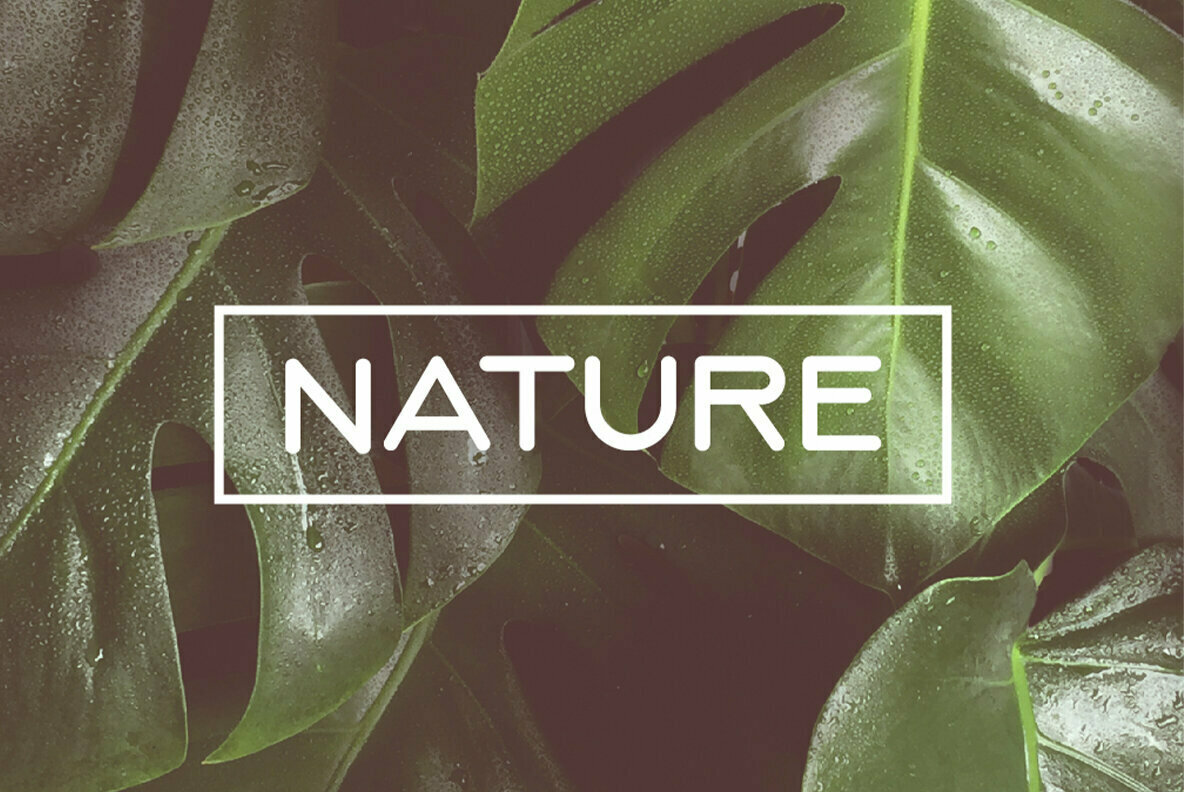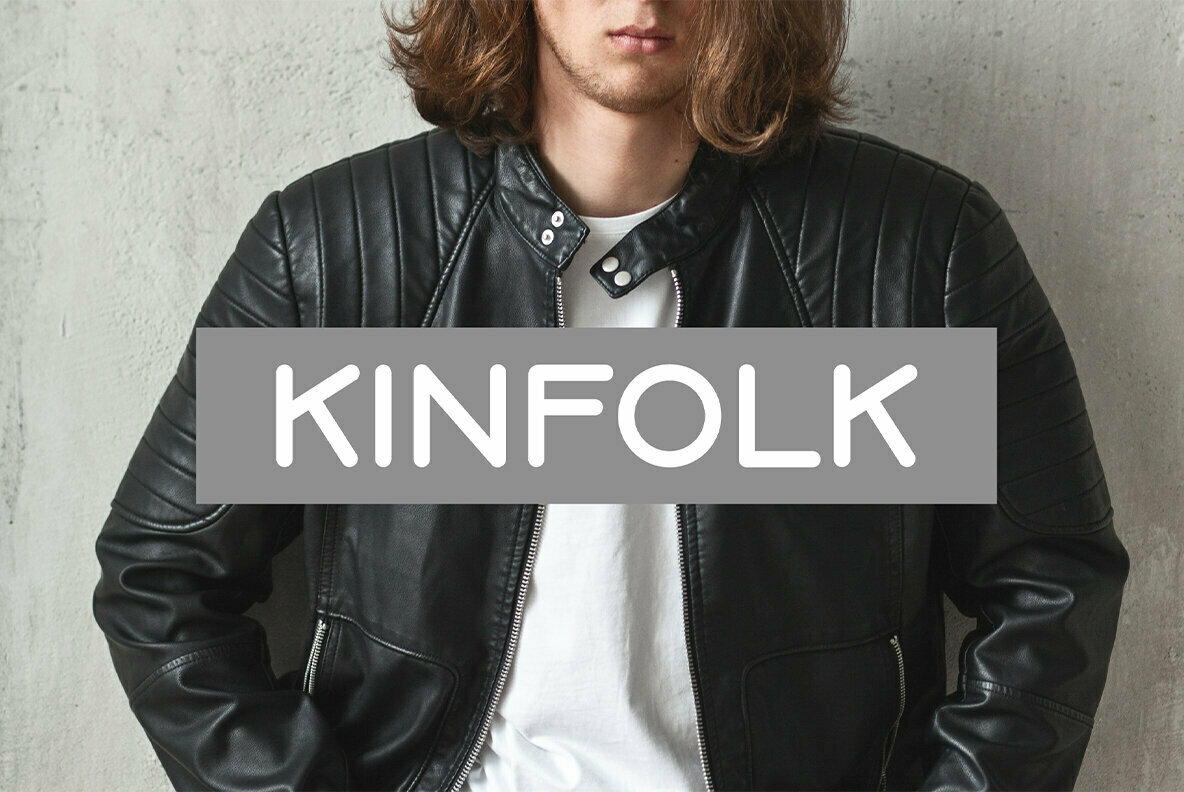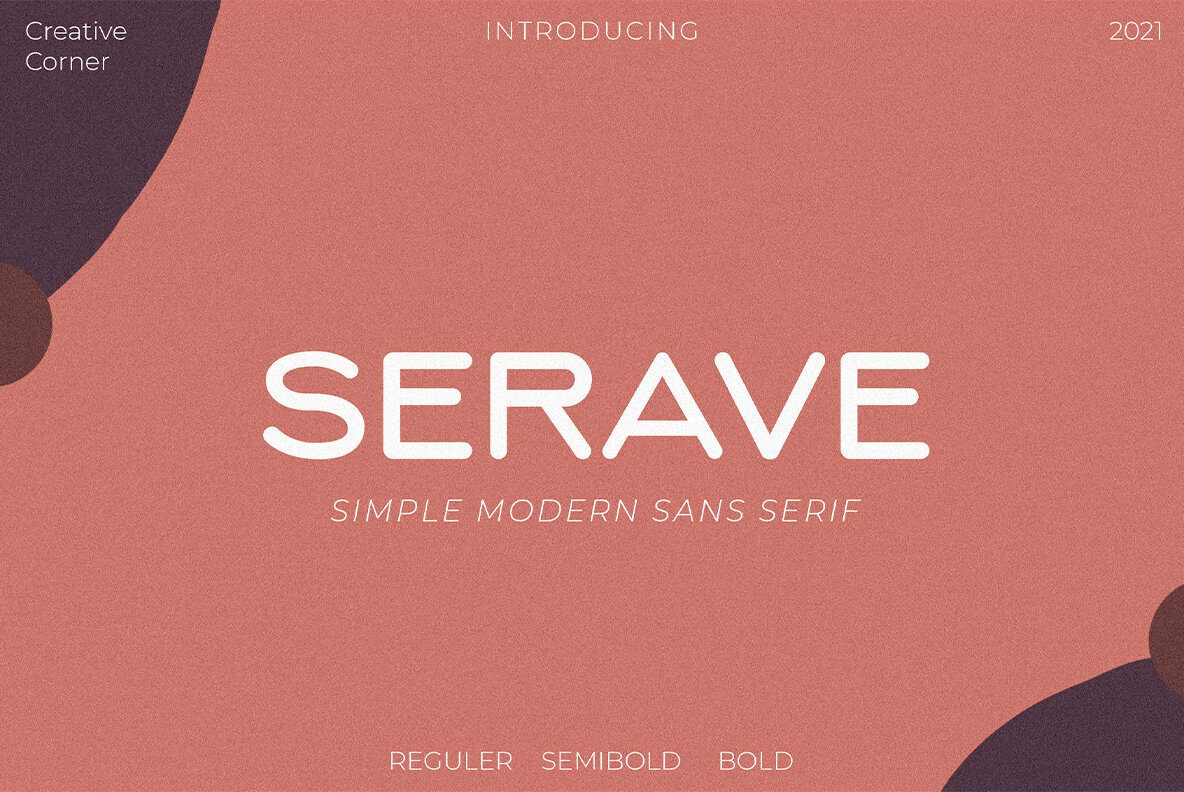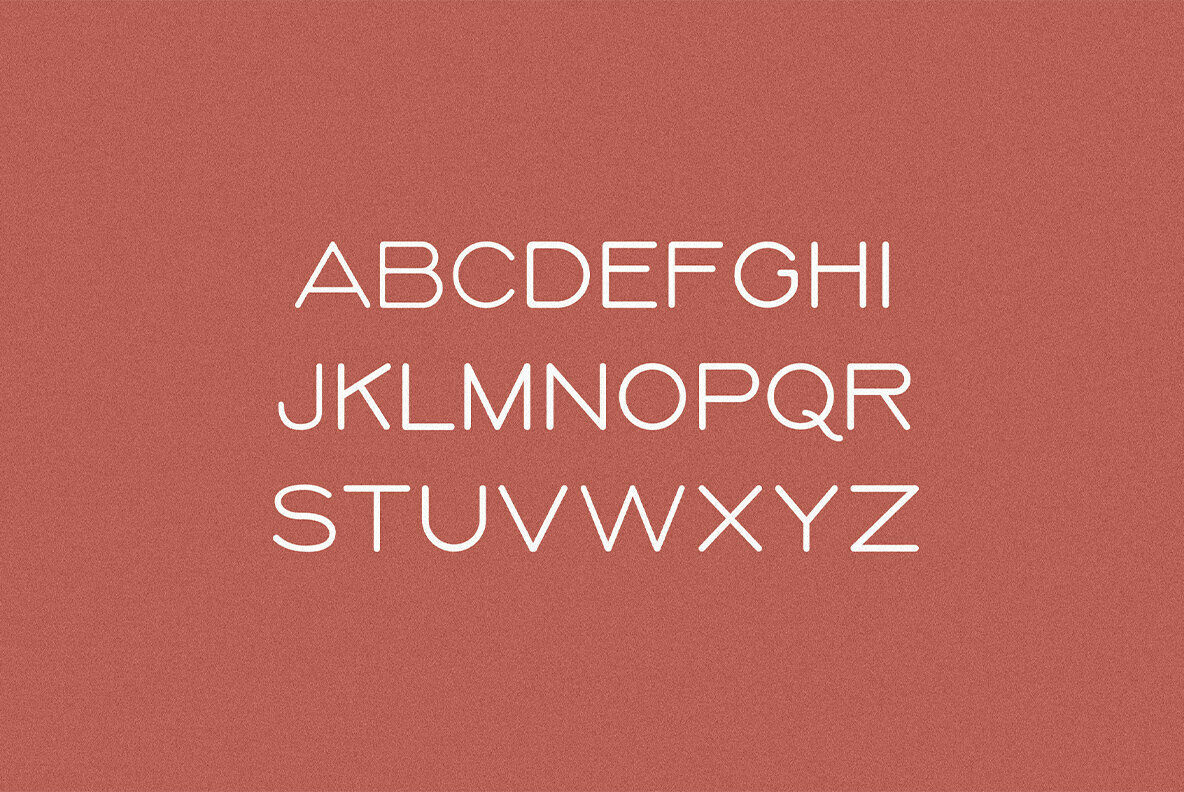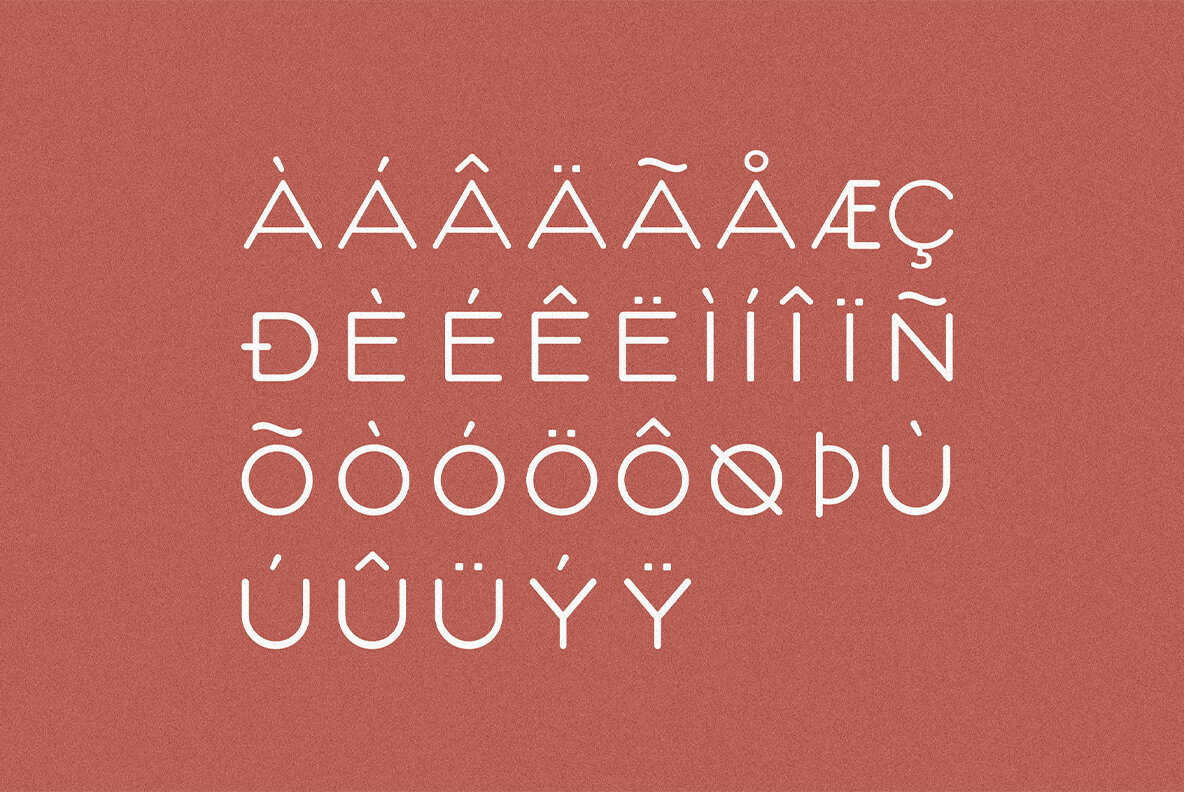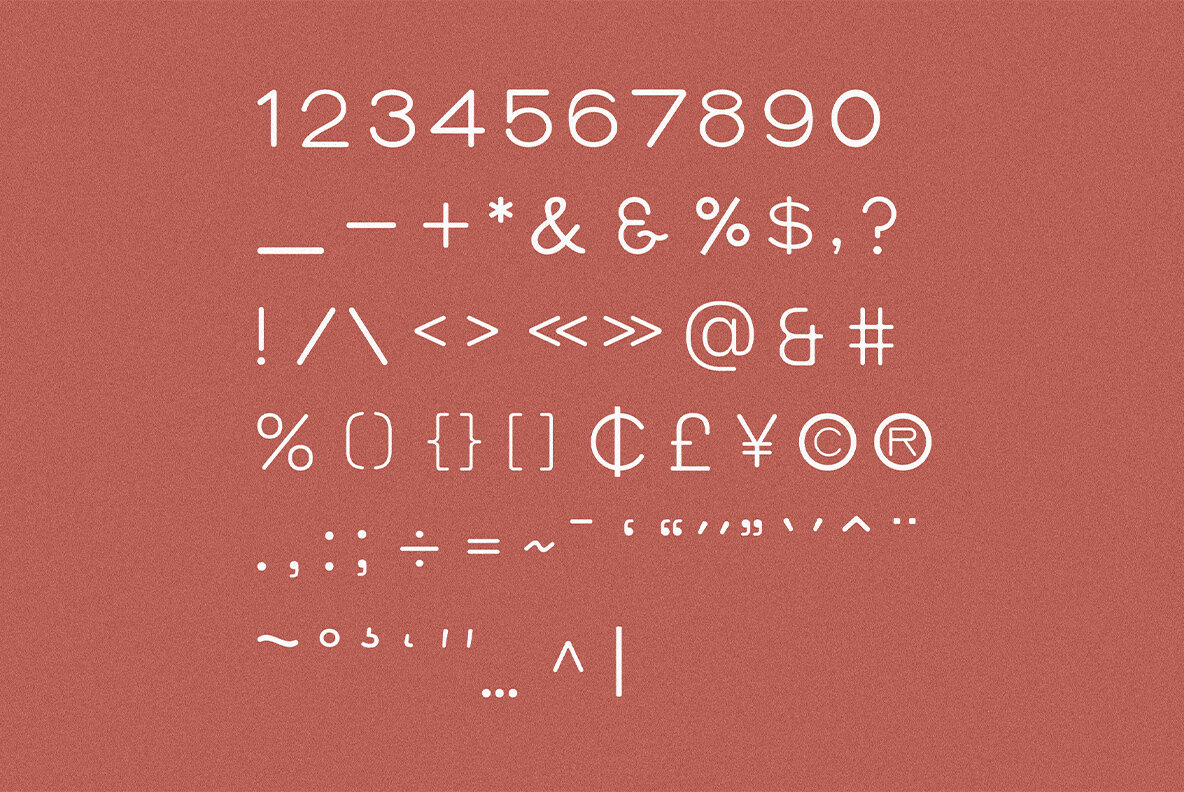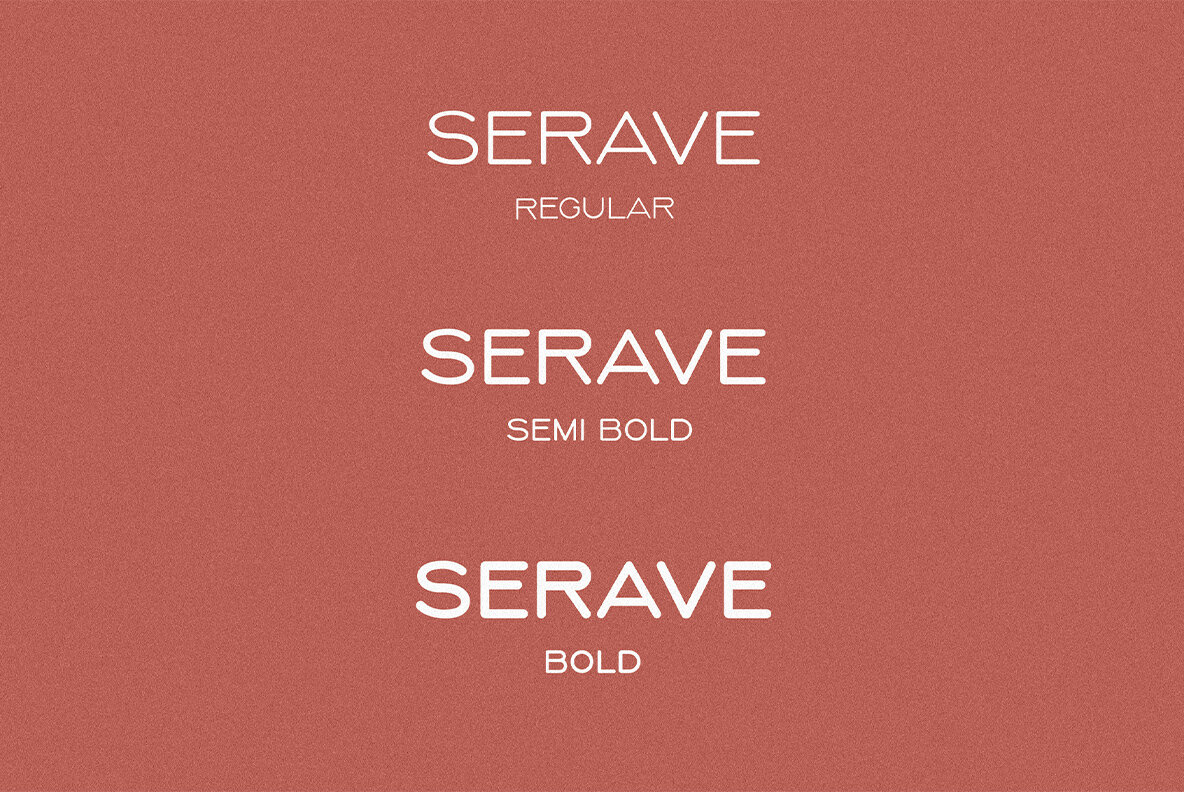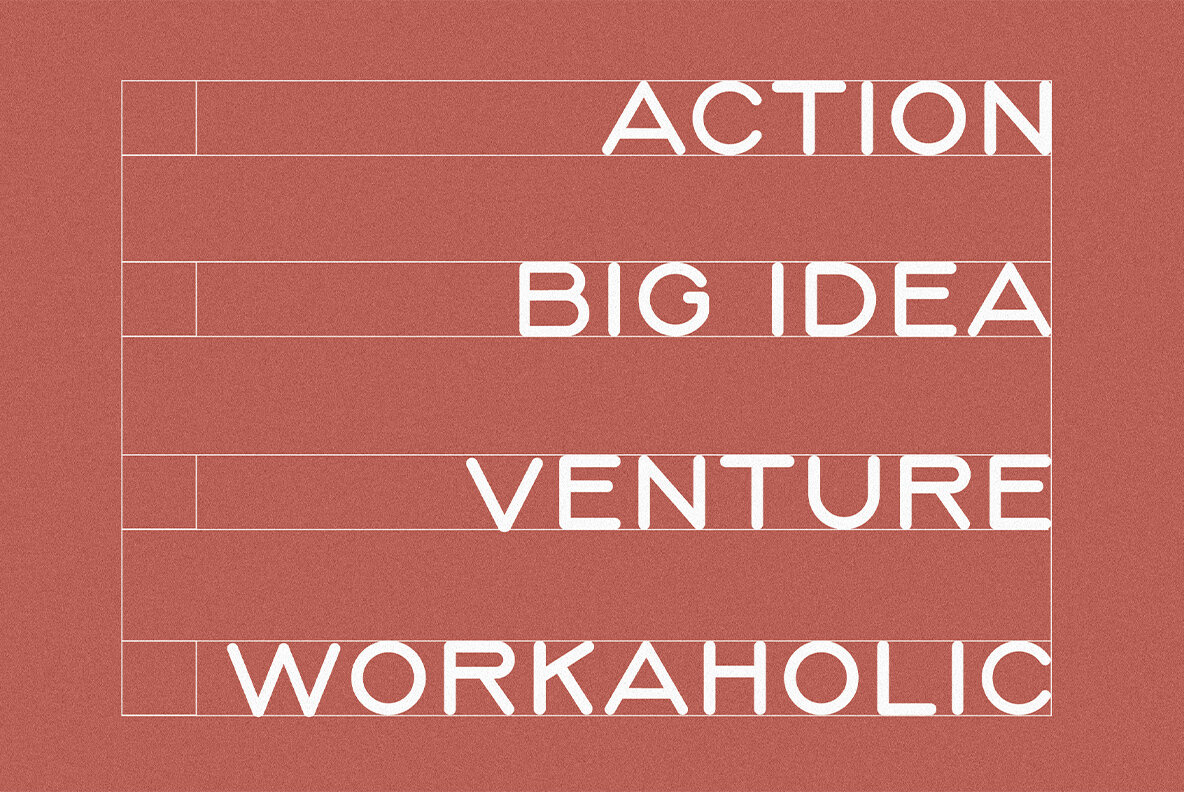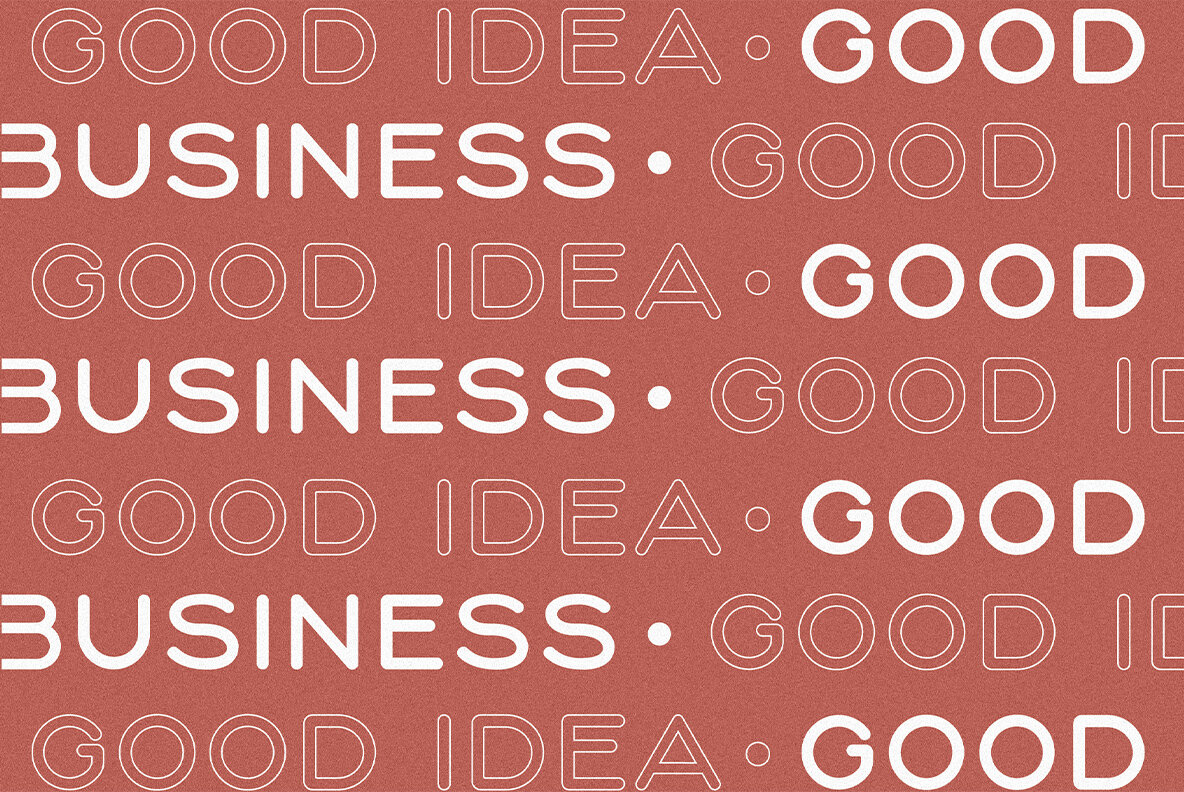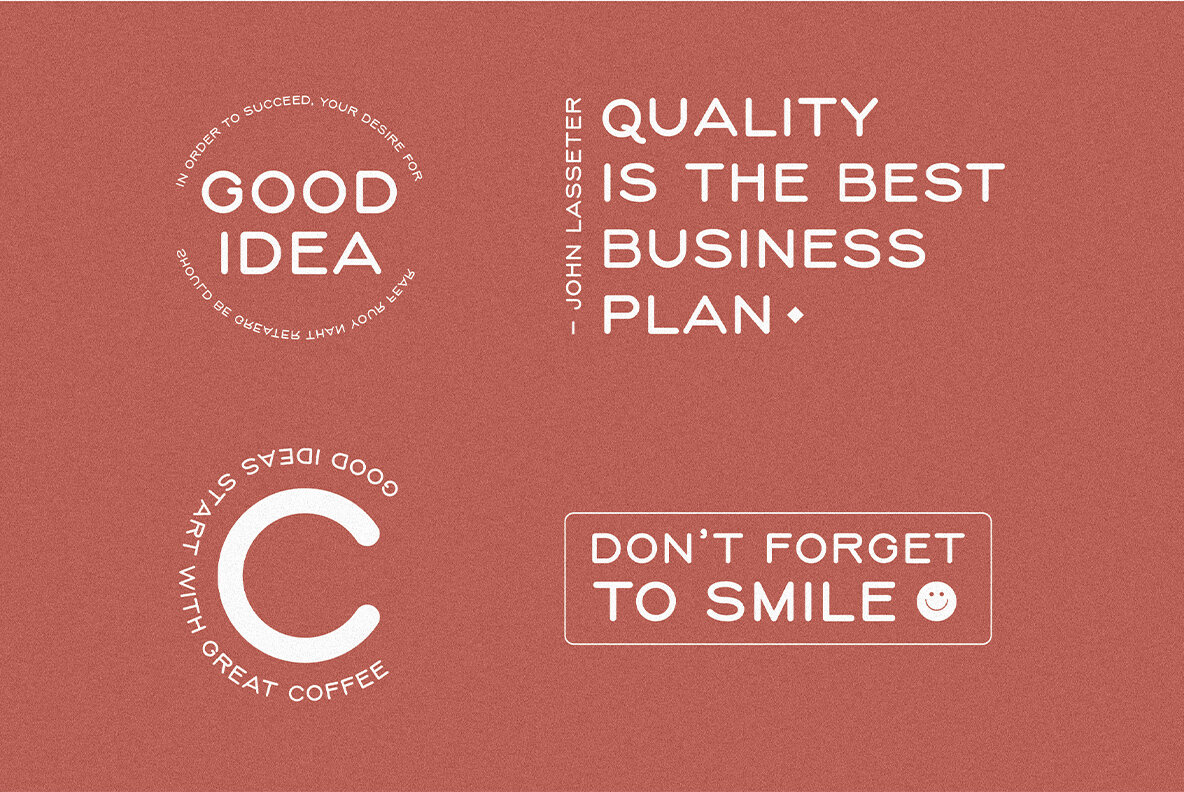
Serave Font
Serave is a soft rounded sans serif font . it's a very versatile font that works great in large and small sizes. Perfect for branding projects, logo design, clothing branding, product packaging, magazine headers, or simply as a stylish text overlay to any background image.